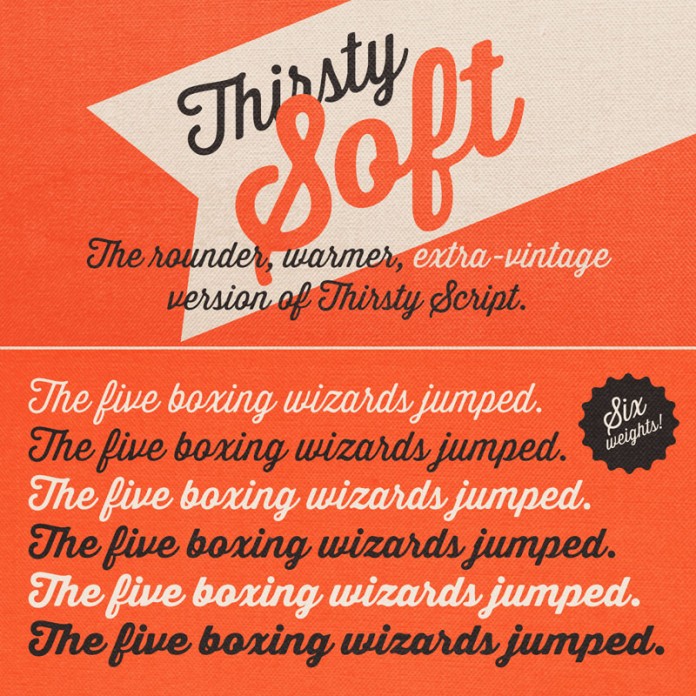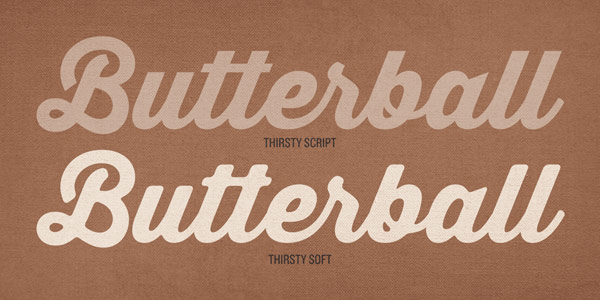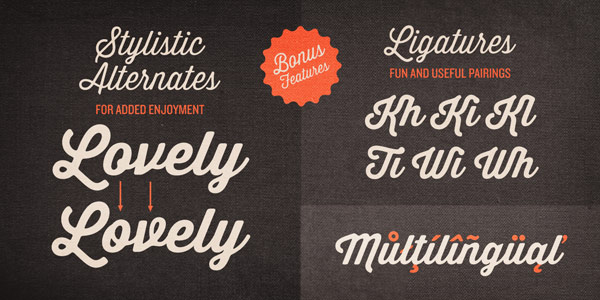
The Thirsty Soft font family from Yellow Design Studio is a rounder, warmer, and extra-vintage version of Thirsty Script.
Type designer Ryan Martinson of Yellow Design Studio has created the Thirsty Soft font family in 2014. It’s a rounder version of the Thirsty Script typeface. While the original Thirsty Script typeface is characterized by sharp edges and pointed terminals, Thirsty Soft provides a more warm and smooth appearance. The typeface draws inspiration from good old vintage lettering and signage fonts with a nice script style.
The complete vintage script font family comprises six weights ranging from Light to Black. In addition, it is packed with different OpenType features such as old-style figures, stem alternates, ligatures, and stylistic alternates. The Thirsty Soft font family supports multiple languages and is available as both webfont as well as desktop font.